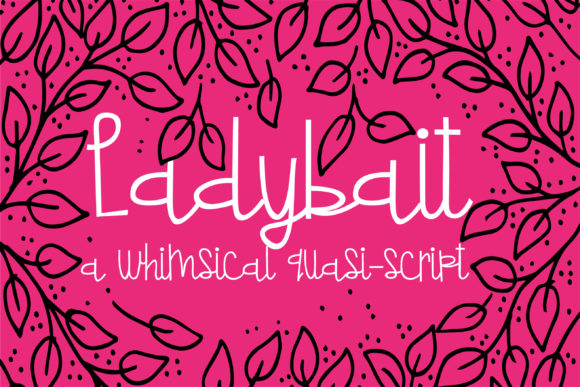
Prepare to be captivated by ZP Ladybait, a script font family that exudes elegance and charm. Meticulously crafted by Illustration Ink, this collection of fonts will transform your creative visions into captivating realities.
ZP Ladybait is more than just a font; it's an artistic expression, a symphony of flowing letters that dance and twirl across your designs. With its clean lines and a touch of quirkiness, Ladybait adds a personal touch to your projects, making them stand out from the ordinary.
Immerse yourself in the world of limitless possibilities with Ladybait. Whether you're a seasoned designer or just starting, this font family will elevate your work to new heights. From logos that demand attention to branding that leaves a lasting impression, Ladybait is your perfect companion.
Unleash your creativity on social media with Ladybait. Its enchanting curves and graceful strokes will bring your posts and stories to life, captivating your followers with a visual feast. Let Ladybait be your secret weapon to engage and enchant your audience, turning likes into loyal fans.
But Ladybait's magic doesn't stop there. It's a font family that embraces the spirit of DIY. Whether you're crafting personalized invitations, designing unique cards, or creating handmade gifts, Ladybait adds a touch of sophistication and charm that will make your projects truly exceptional.
Ladybait is not just a font; it's an invitation to embark on a creative journey, to transform your ideas into tangible works of art. Its versatility knows no bounds, making it the perfect choice for a wide range of projects, from elegant wedding invitations to playful children's books.
Experience the allure of ZP Ladybait today and unlock the door to a world of captivating designs. Let your imagination soar as you explore the endless possibilities with this exceptional font family.